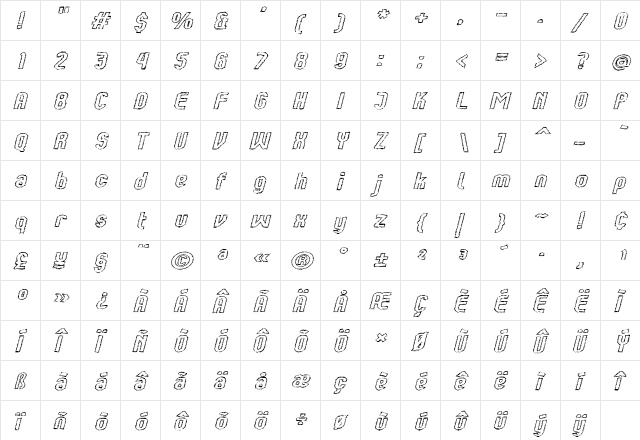
Kumba Scrawl Outline Expanded Italic
| Foundry | Audry Kitoko Makelele |
| Designer | Audry Kitoko Makelele |
Design Context for Kumba Typeface
Kumba brings ornamental detail and strong personality to headlines and identities, where visual impact matters more than quiet functionality. Its italic angle brings a sense of urgency and motion to the letterforms.
Font Pairing: Pair with a clean neutral sans-serif for body copy to let Kumba's character lead without overwhelming the composition.
Pro Tip: Treat Kumba as the centrepiece of your typographic hierarchy. One strong heading set in a decorative face can carry an entire layout.